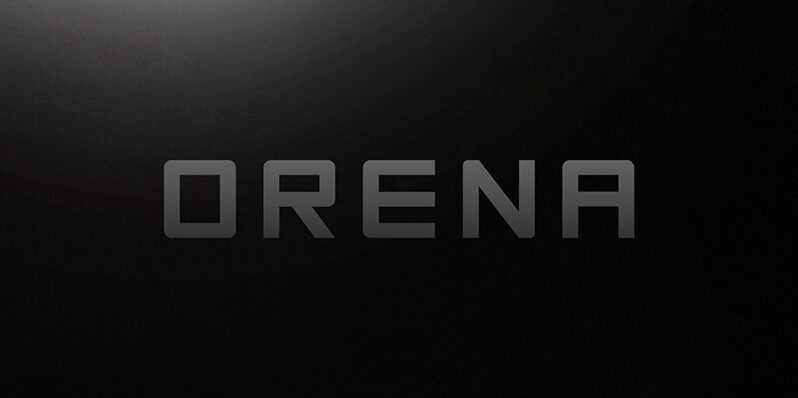
Orena, designed by Carlos Matteoli in 2012, is a free modern display font with broad geometric capitals and sharply cut joins. Its squared forms feel mechanical and deliberately severe.
Technology and science fiction are its clearest territory, making it apt for game interfaces, film title cards, and electronic music artwork. The dense silhouettes resemble custom machinery rather than ordinary lettering. That same engineered character also suits sportswear branding and futuristic event posters.